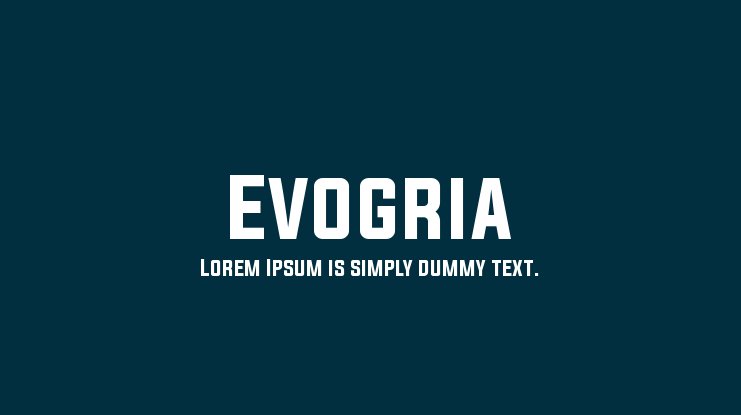
Evogria Font
Evogria is a high quality Sans Serif font that is designed by 7NTypes and is available for free download and personal use. The free version provides all uppercase and lowercase letters and a few special characters too.
Evogria Font is designed as an alternative font for headline on display, poster, magazine, etc.
Evogria Sans Serif Font